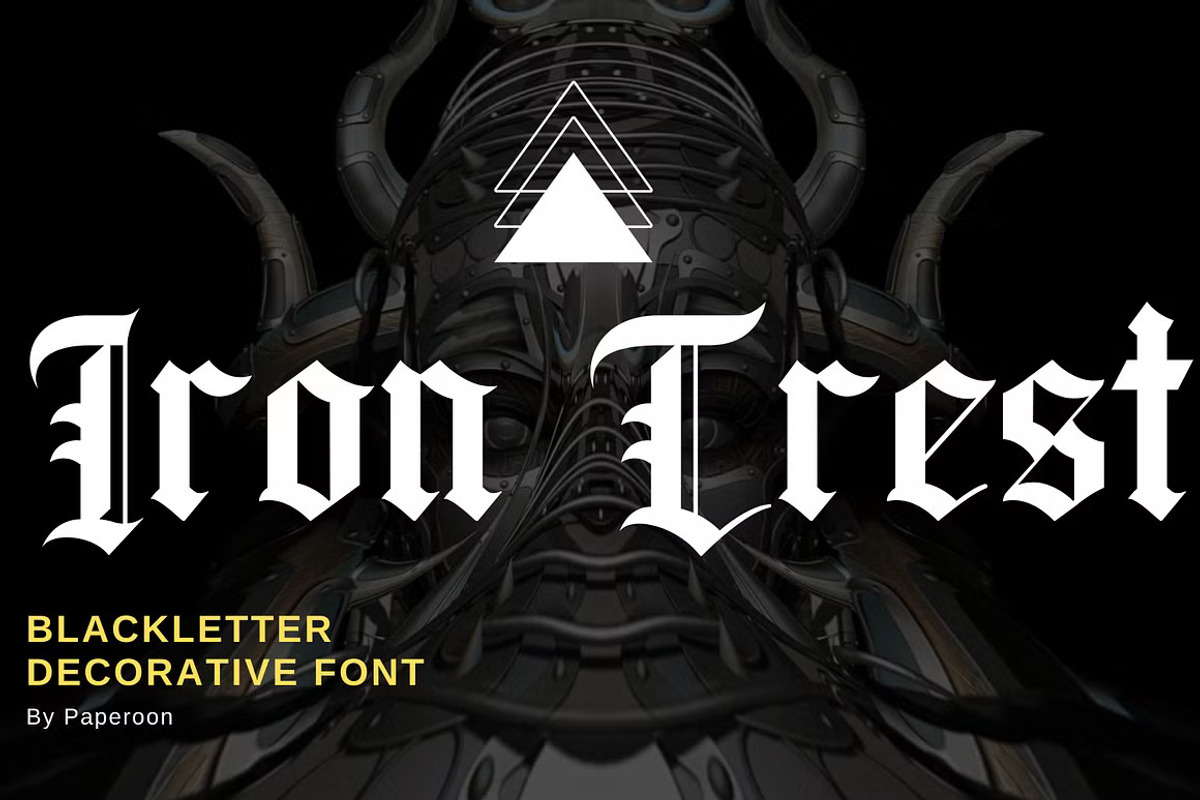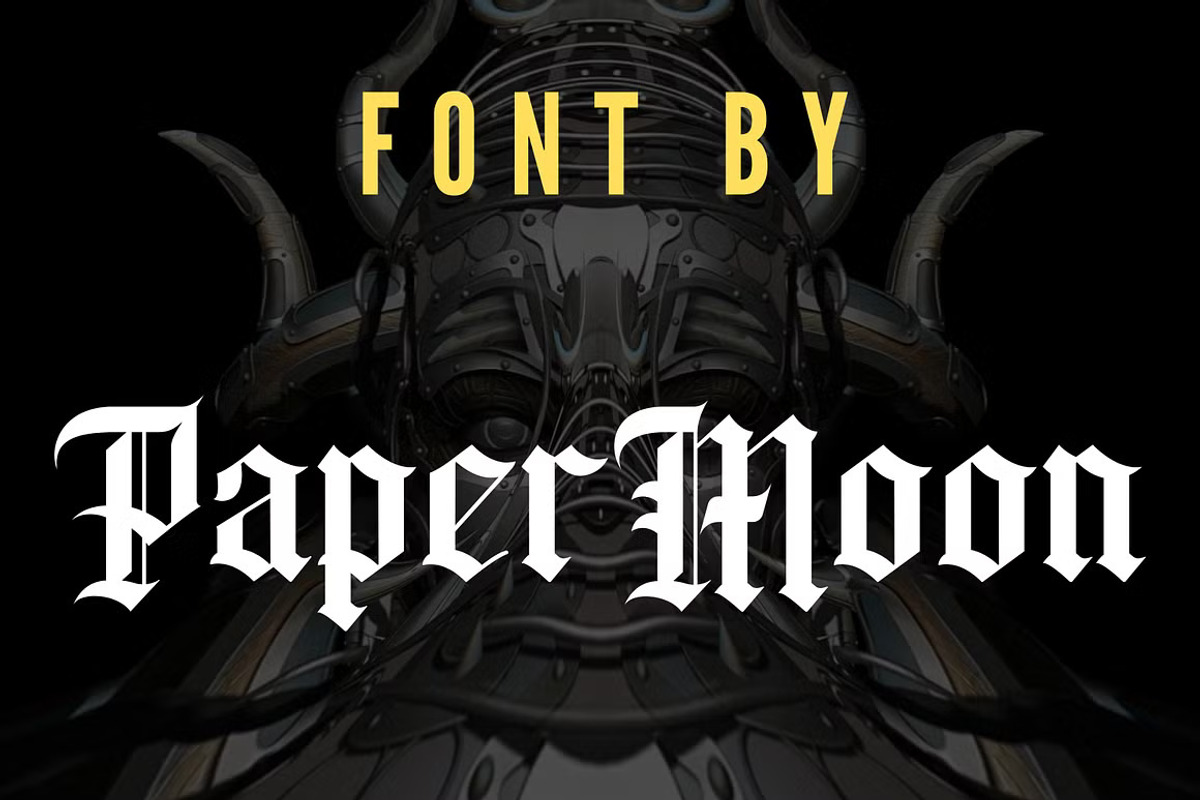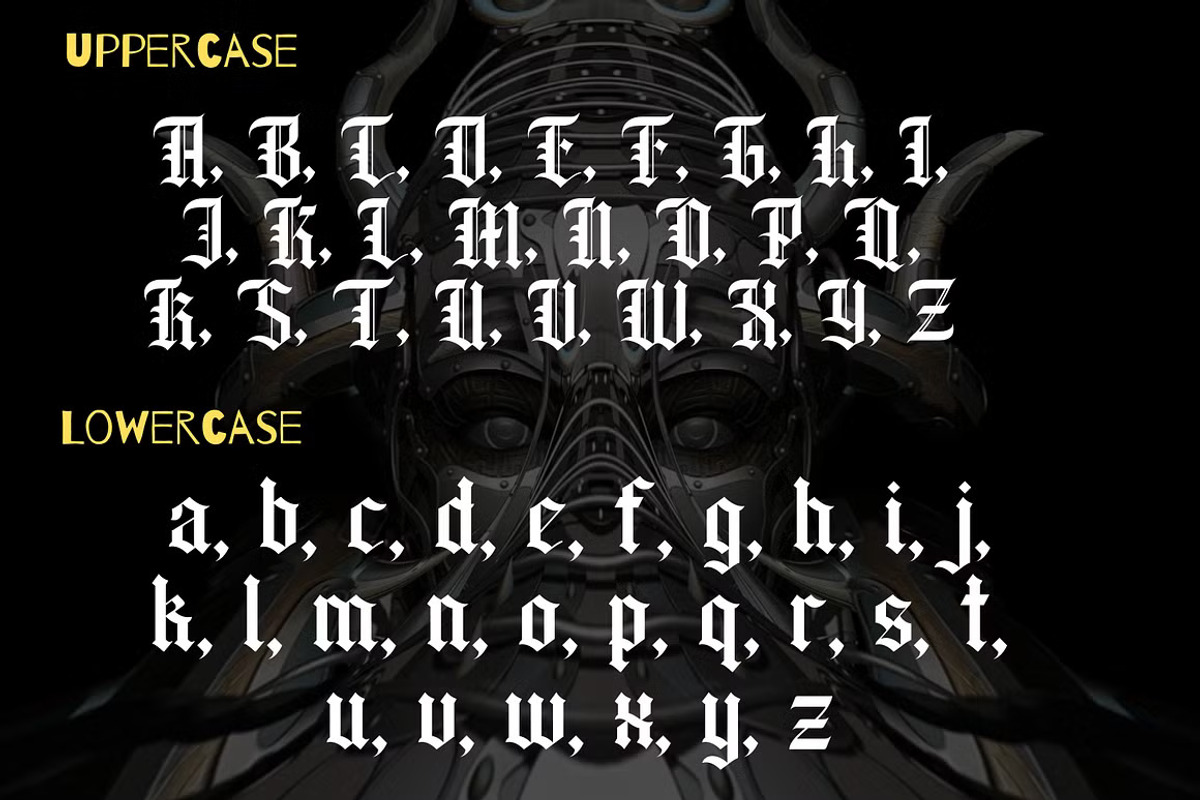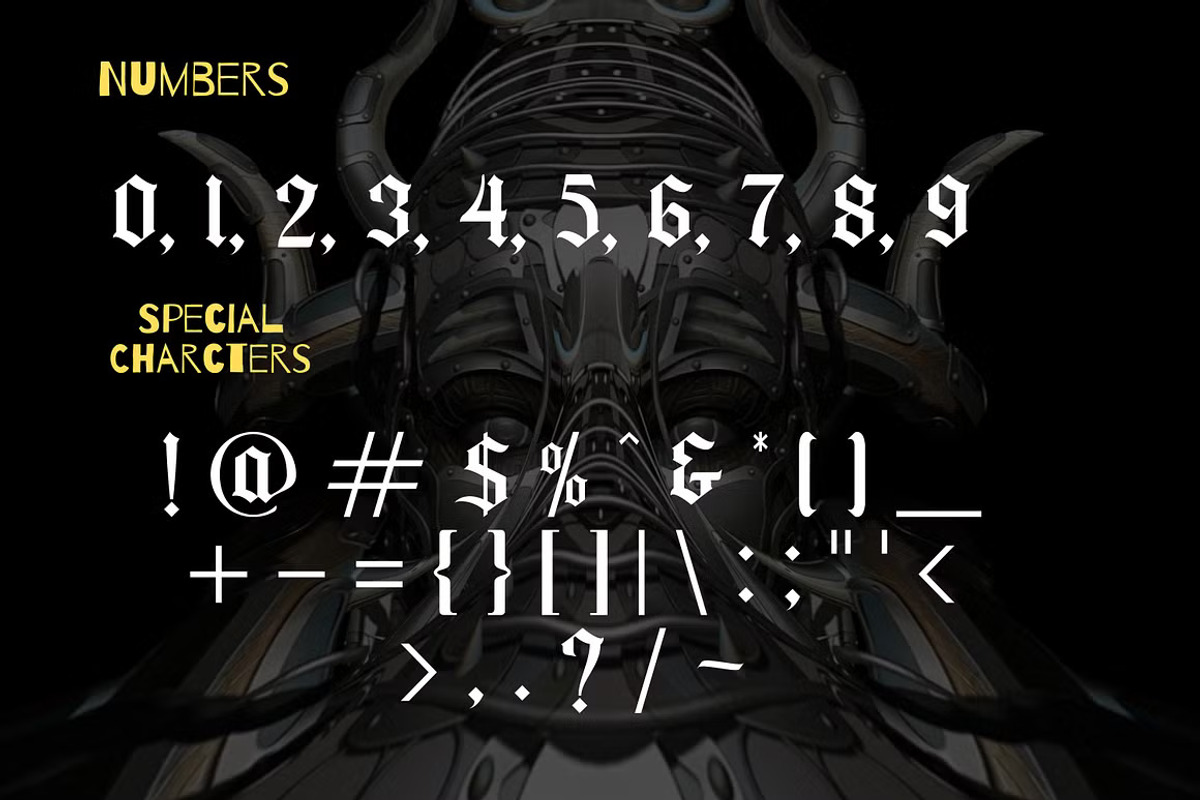
IronCrest - A Blackletter Font
Introducing IronCrest: A Unique Blackletter Decorative Font for Bold and Artistic Designs
Dive into the captivating world of IronCrest, a blackletter decorative font designed to bring a touch of gothic artistry to your projects. Whether you’re working on tattoo designs, striking headlines, eye-catching posters, classic magazine layouts, vintage newspaper aesthetics, trendy t-shirt graphics, or labels, IronCrest delivers a bold and distinctive typeface perfect for any creative endeavor.
⦿ Key Features: